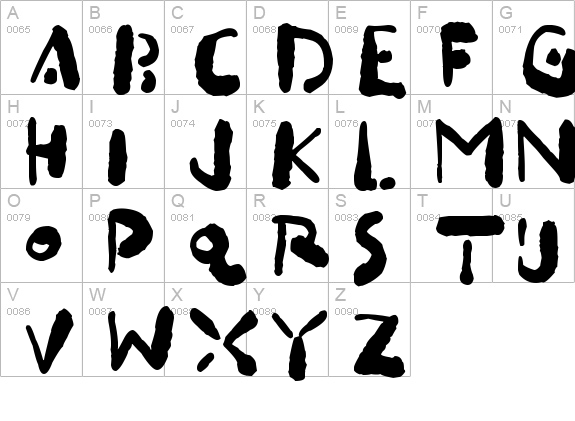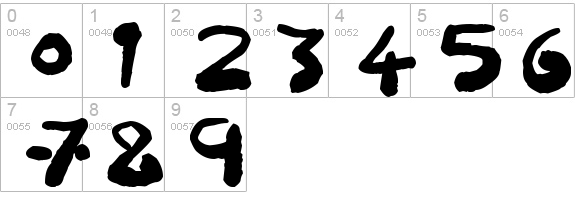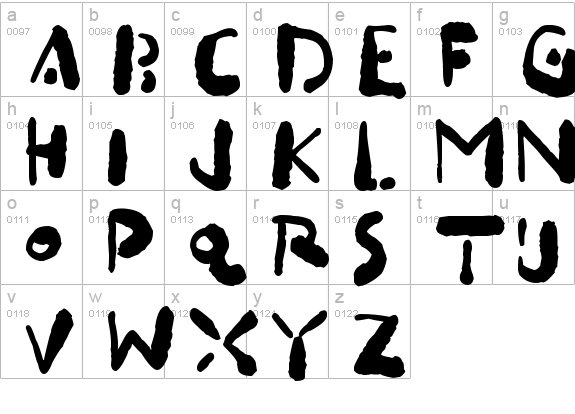
Inkbleeda Font Details
Inkbleeda is a free for personal use font in the Script > Graffiti category, designed by Darrell Flood. It has been downloaded 40 times and is available for Windows, Mac and Linux.
Inkbleeda font is a stunning display typeface that captures the essence of artistic expression with its unique and quirky design. This font exudes a sense of creativity and playfulness, making it perfect for adding a touch of whimsy to any project. With its hand-drawn aesthetic and irregular lines, Inkbleeda font brings a charming and organic feel to your designs.